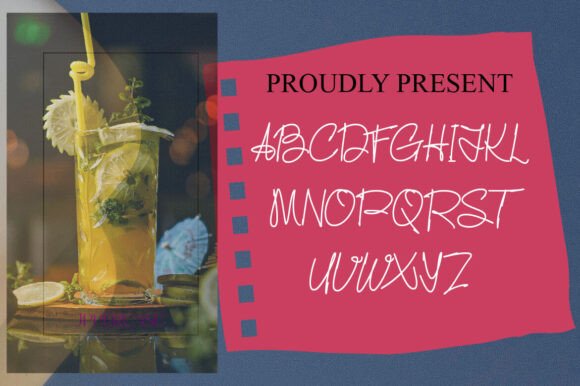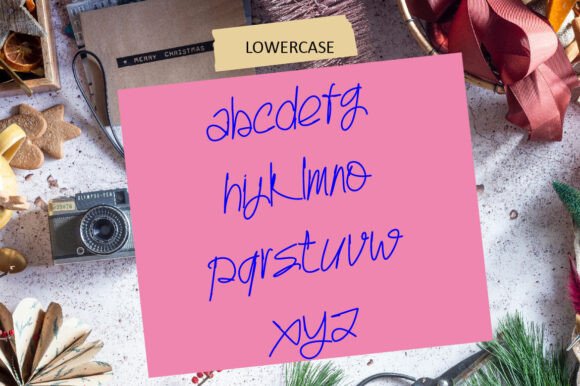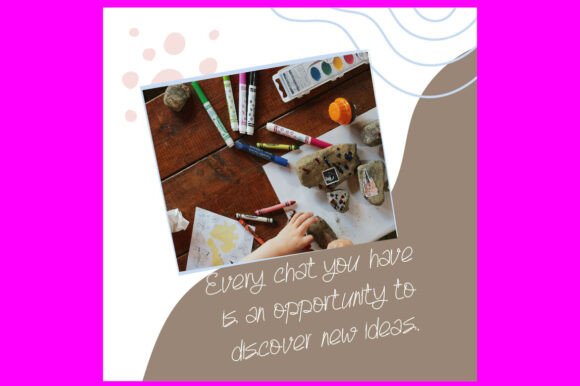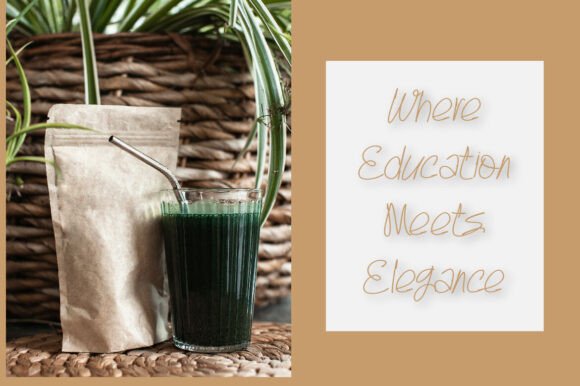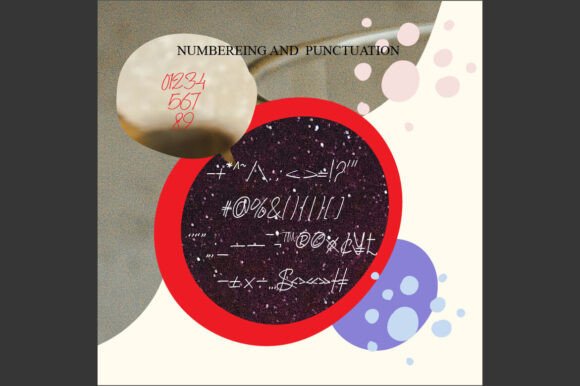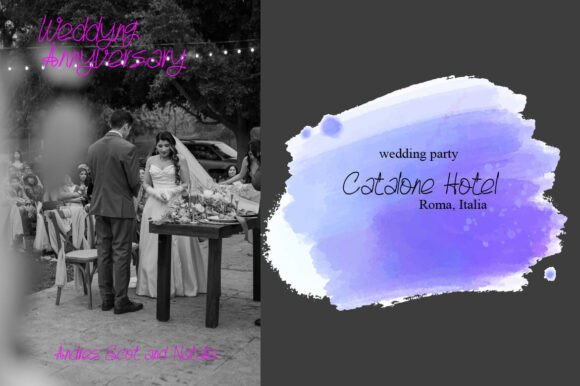
The Sweet Spot: Discovering Andreas Font
I’ll never forget the moment I stumbled upon Andreas Font while working on a whimsical craft project for a client. I was on a mission to find the perfect handwritten font that would bring a touch of warmth and personality to the design. As I scrolled through my font library, Andreas caught my eye with its effortless, friendly vibe. It was love at first sight! 💕
An Honest Review of Andreas Font
- ✨ Sweet and Friendly: Andreas Font has a natural, approachable quality that makes it perfect for a wide range of designs, from invitations to branding materials.
- ✅ Unique Style: Its distinctive handwritten style sets it apart from more generic fonts, adding a touch of personality to any project.
- 🌈 Versatility: Whether you’re working on a digital project or a print design, Andreas Font adapts seamlessly, making it a fantastic addition to any design toolkit.
While Andreas Font is incredibly versatile, there are a few things to keep in mind:
- 🤔 Limited Formality: Due to its friendly and informal nature, Andreas Font might not be the best fit for very formal or corporate designs.
- ⚠️ Glyph Variety: While the font has a lovely range of characters, it might not offer the extensive glyph library that some designers require for complex projects.
Exploring Alternatives: Similar Fonts to Andreas
If you’re looking for fonts with a similar vibe to Andreas, consider these alternatives:
- Pacifico: A beautiful, modern script font with a friendly and approachable feel. Perfect for designs that require a bit more elegance.
- Great Vibes: A stylish script font with a fun and energetic personality. Great for projects that need a playful touch.
- Carolyna Pro: A lovely, elegant script font with a sophisticated feel. Ideal for designs that require a bit more refinement.
- Lobster: A bold, yet charming script font that’s perfect for making a statement. Use it for headlines or titles that need a touch of whimsy.
The Story Behind Andreas Font
Andreas Font was designed with the intention of creating a friendly, approachable typeface that would bring warmth and personality to designs. The designer aimed to craft a font that felt both modern and inviting, making it perfect for a wide range of creative projects. While the exact details of the font’s creation are scarce, it’s clear that Andreas was designed to make designs feel more human and relatable.
| Font Name | Andreas Font |
| Author | gunaloe12 |
Q: What makes Andreas Font unique?
A: Andreas Font stands out due to its sweet and friendly handwritten style, which adds a unique touch to designs.
Q: Is Andreas Font suitable for body text?
A: While Andreas Font is beautiful, it’s more suited for headlines, titles, and short paragraphs due to its decorative nature. For longer body text, a more traditional font might be more readable.